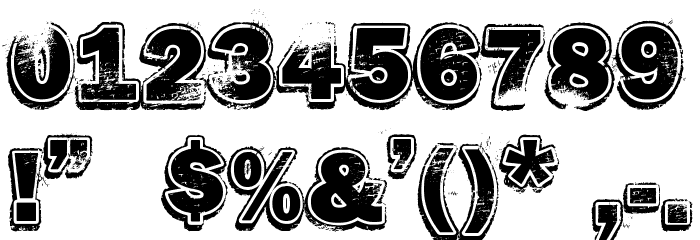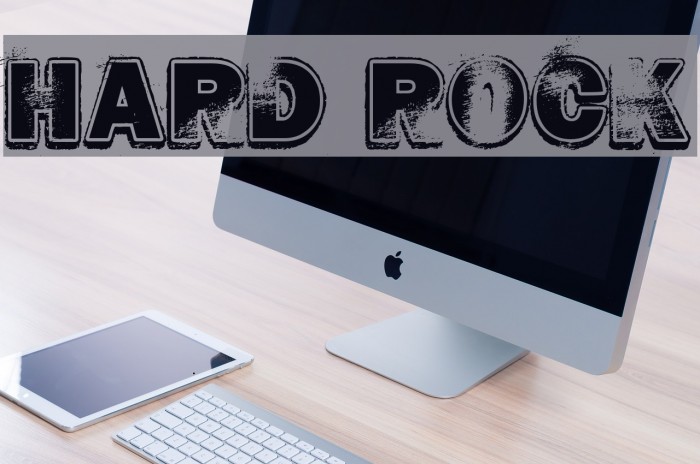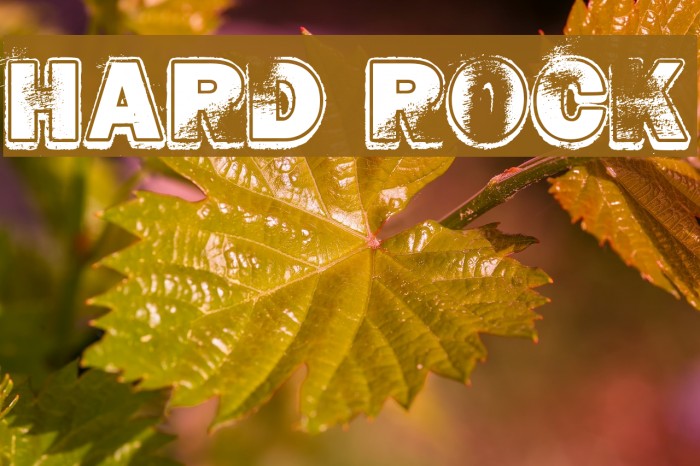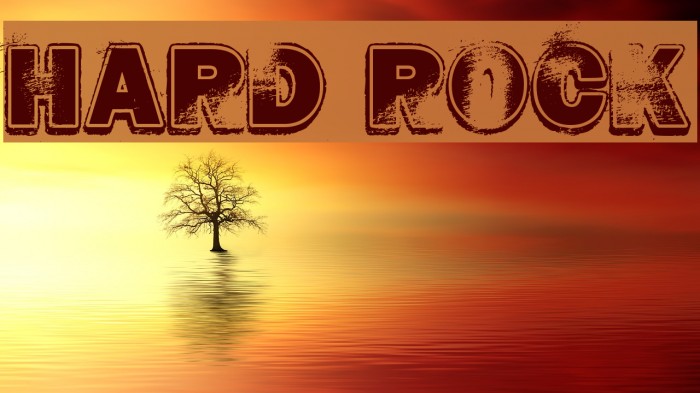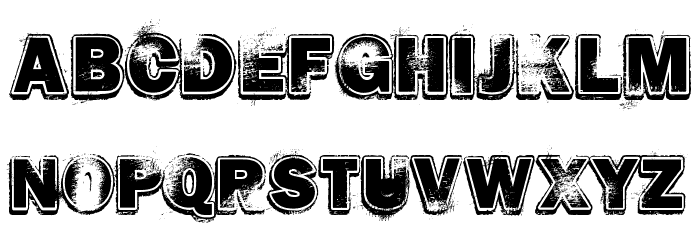
HARD ROCK Font
HARD ROCK Description
This font features a bold, distressed style with a rugged, textured appearance reminiscent of worn-out surfaces. The characters are uppercase, with a thick outline that enhances their prominence. The distressed effect gives it a gritty, urban feel, making it ideal for designs that require a strong, impactful look. The numbers and special characters maintain the same distressed aesthetic, ensuring consistency across all elements. This font's boldness and texture make it stand out, perfect for projects that need a touch of edginess and character.
A bold, distressed font with a rugged, textured appearance from Distorted Eroded fonts.
- Proposed Projects: Ideal for music album covers, posters, event flyers, and branding for edgy or alternative brands.